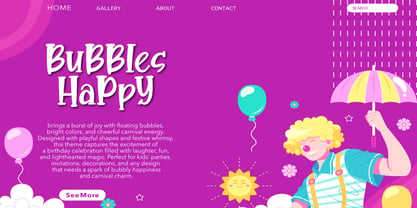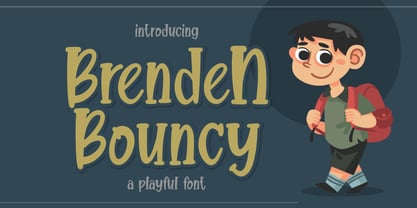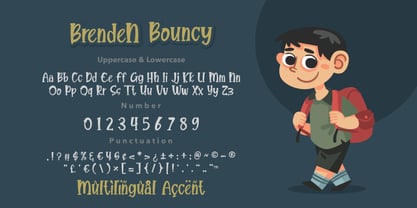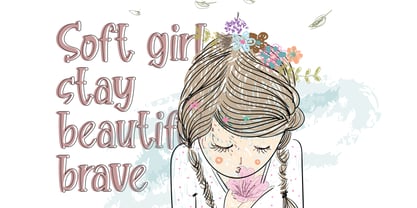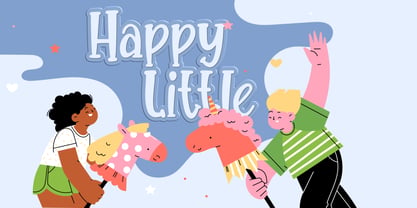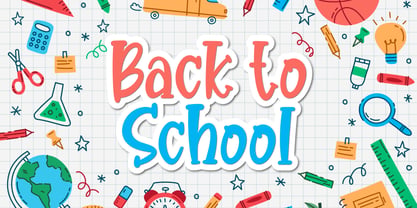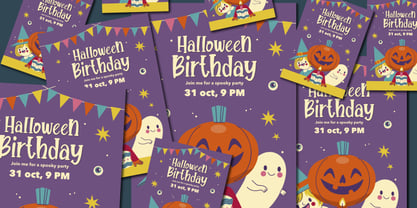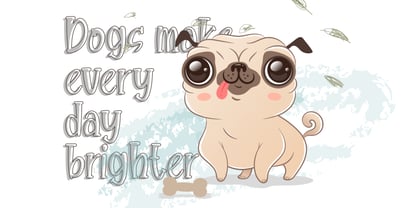
Brenden Bouncy
Die Schriftfamilie Brenden Bouncy wurde von Bayu Aji Fais Mursid entworfen und von Bayuktx veröffentlicht. Brenden Bouncy enthält 1 Stile. Mehr über diese Familie
Brenden Bouncy – Playful Kids Font Brenden Bouncy Playful Kids Font brings cheerful character and joyful movement to every letterform. With rounded edges, bouncy curves, and a hand-drawn charm, this typeface captures the lively spirit of childhood fun. Each glyph feels energetic and friendly — perfect for designs that need warmth, color, and a happy personality. Crafted with soft strokes and whimsical shapes, Brenden Bouncy reflects the imagination of kids’ stories, cartoon adventures, and playful school moments. Its expressive style makes every text feel approachable and full of life, enhancing visual storytelling with a bright, youthful mood. From invitations to educational materials, this font delivers a delightful aesthetic that sparks creativity. Whether used in large headings or small accents, Brenden Bouncy ensures your design stands out with charm and personality. Key Features : * Uppercase & Lowercase * Numerals & Punctuation * Multilingual Support * PUA Encoded & OpenType Features * Smooth, Playful Handcrafted Style * Kid-Friendly Letterforms Suitable For : * Kids Branding & School Projects * Storybooks, Cartoon Titles & Comics * Learning Materials & Classroom Posters * Birthday Invitations & Party Themes * Cute Merch, Stickers & Packaging * Playful Social Media Graphics * Children’s Apps & Illustrations With Brenden Bouncy Playful Kids Font, your designs shine with pure joy — delivering fun, friendliness, and positive energy in every curve.